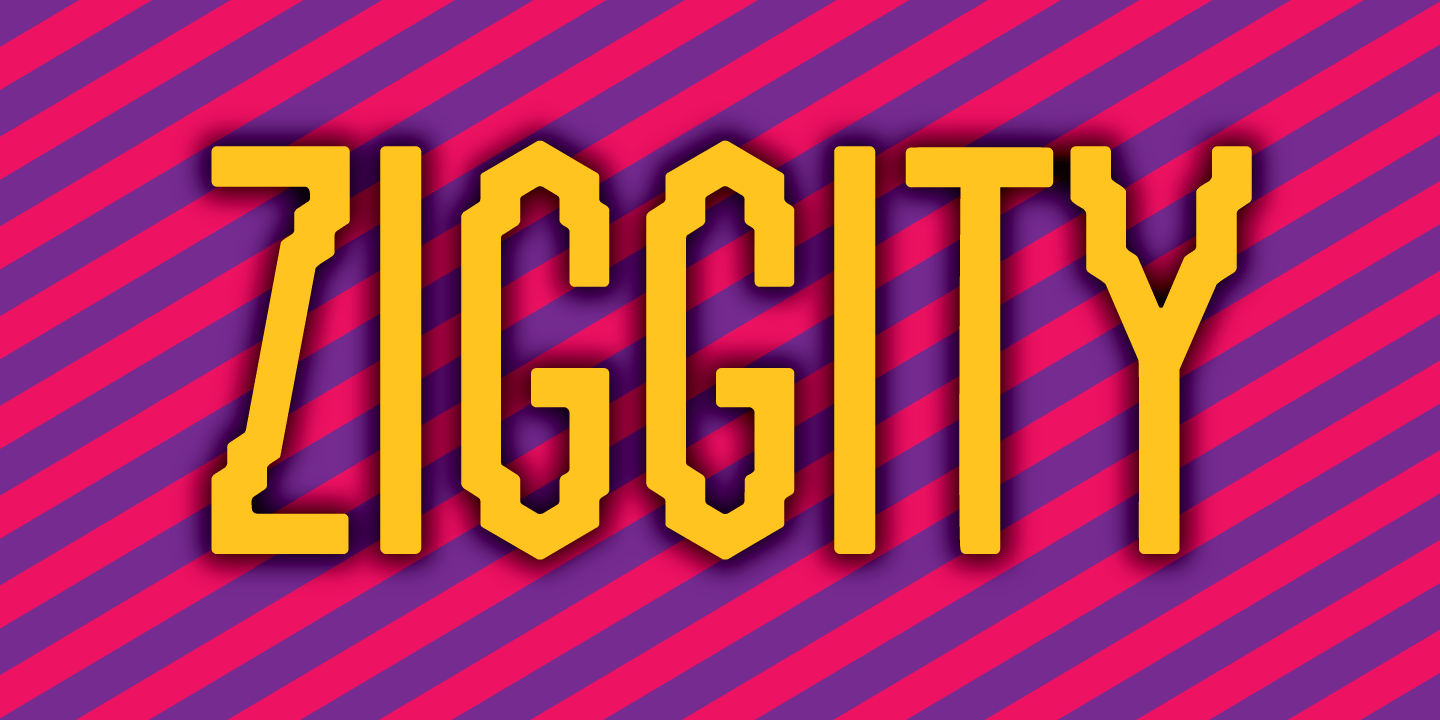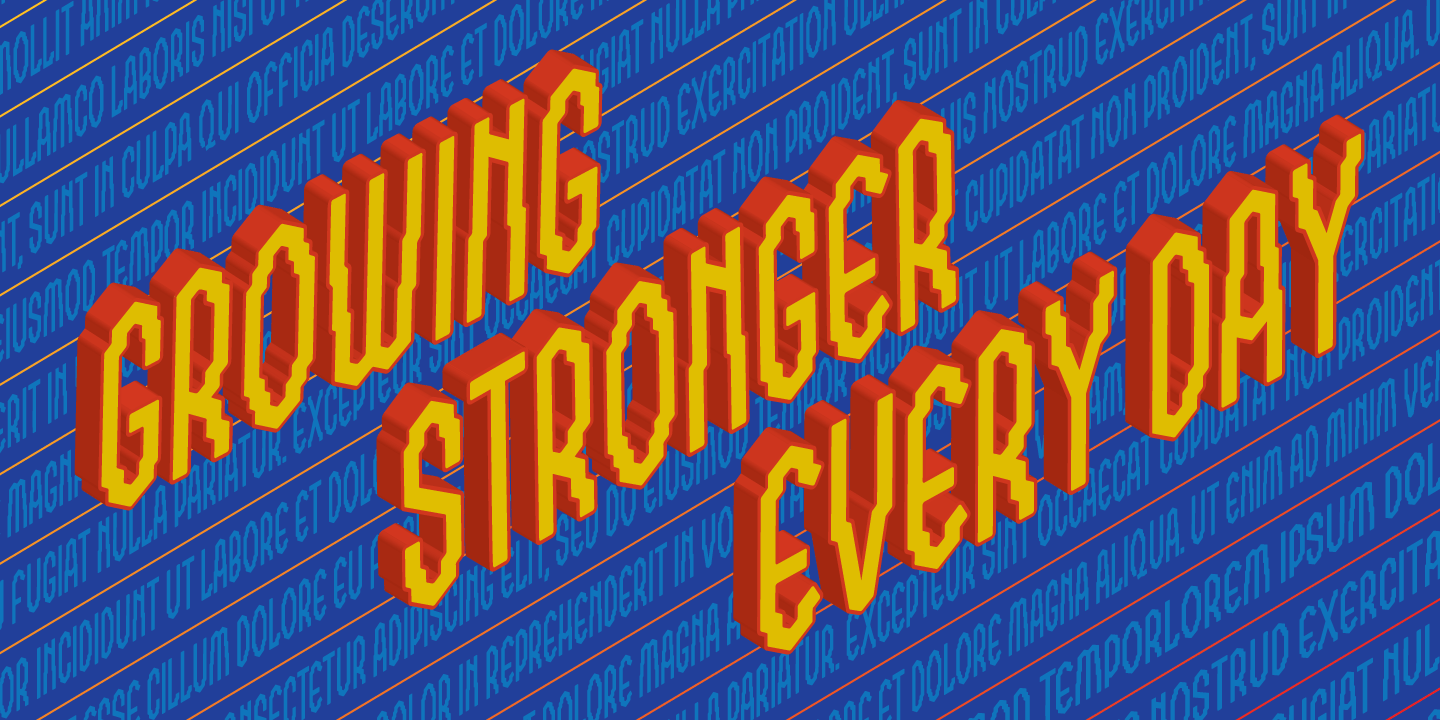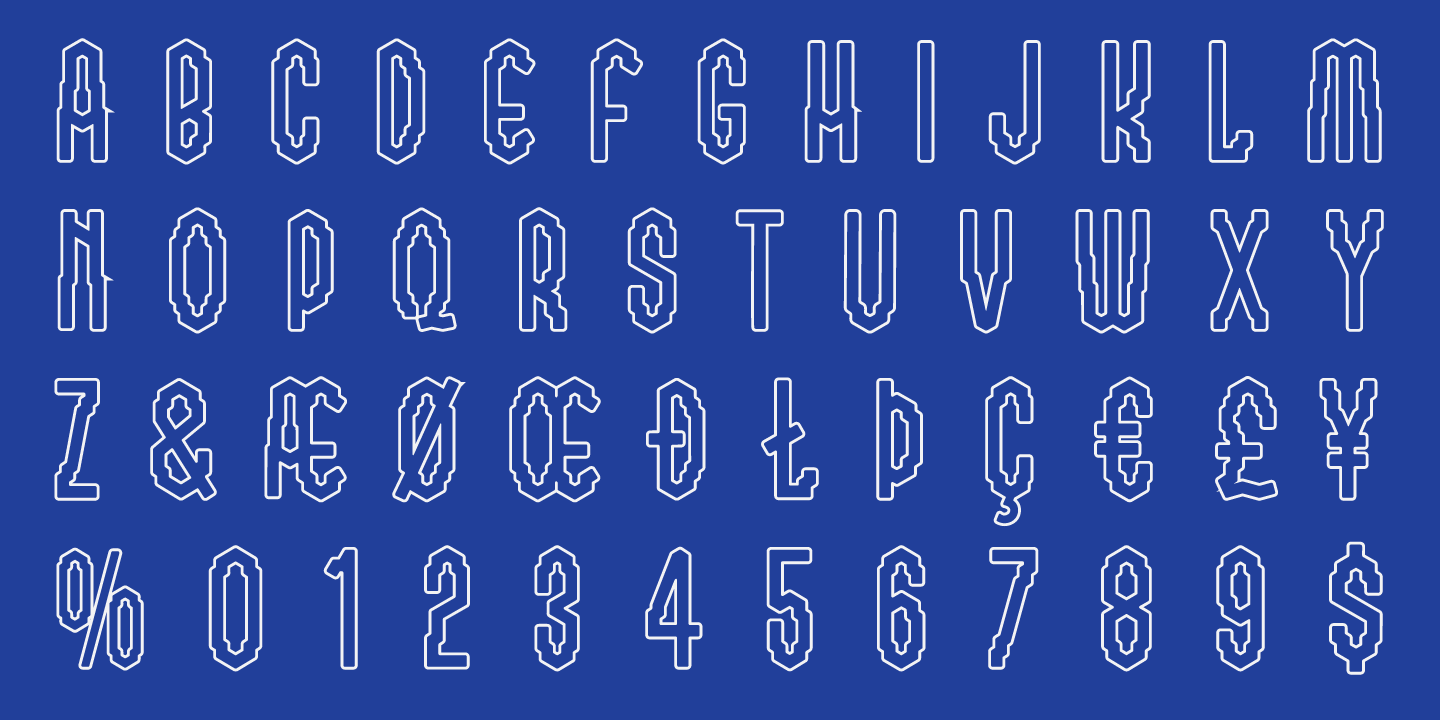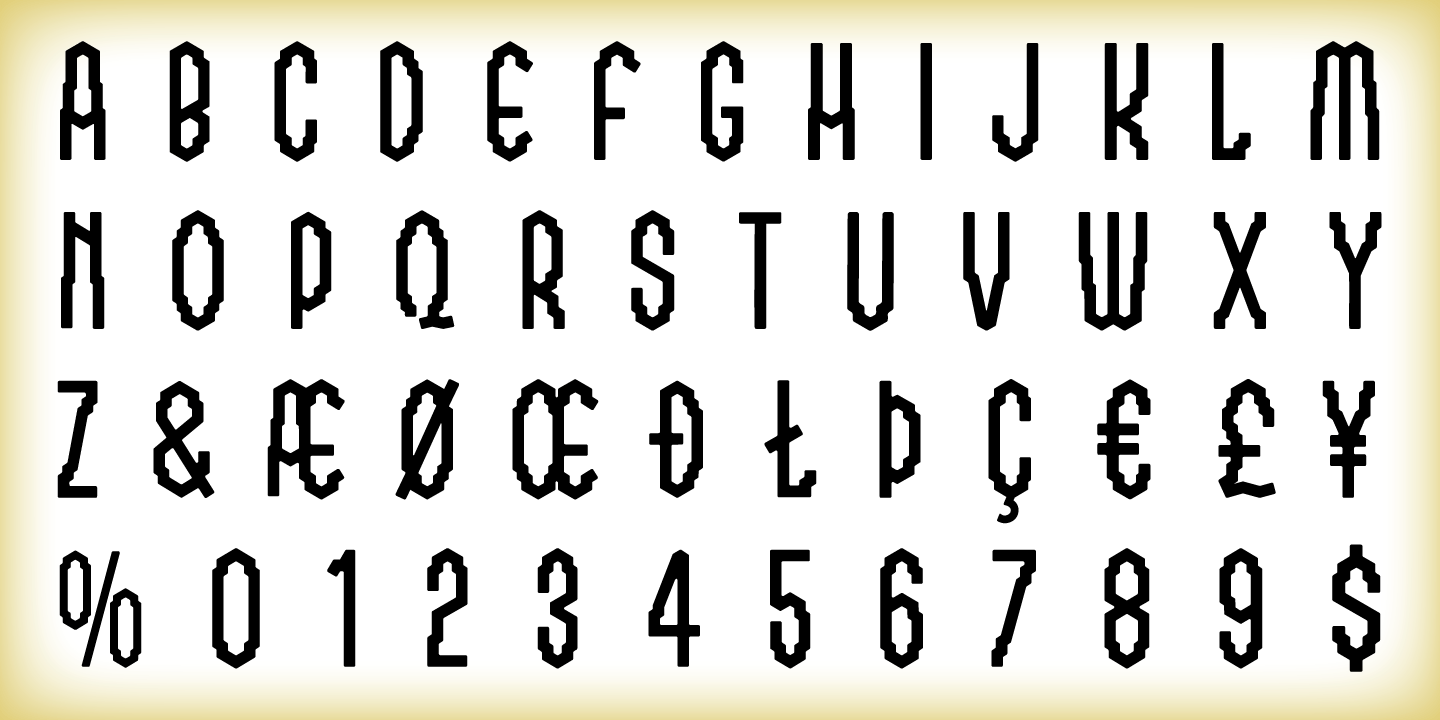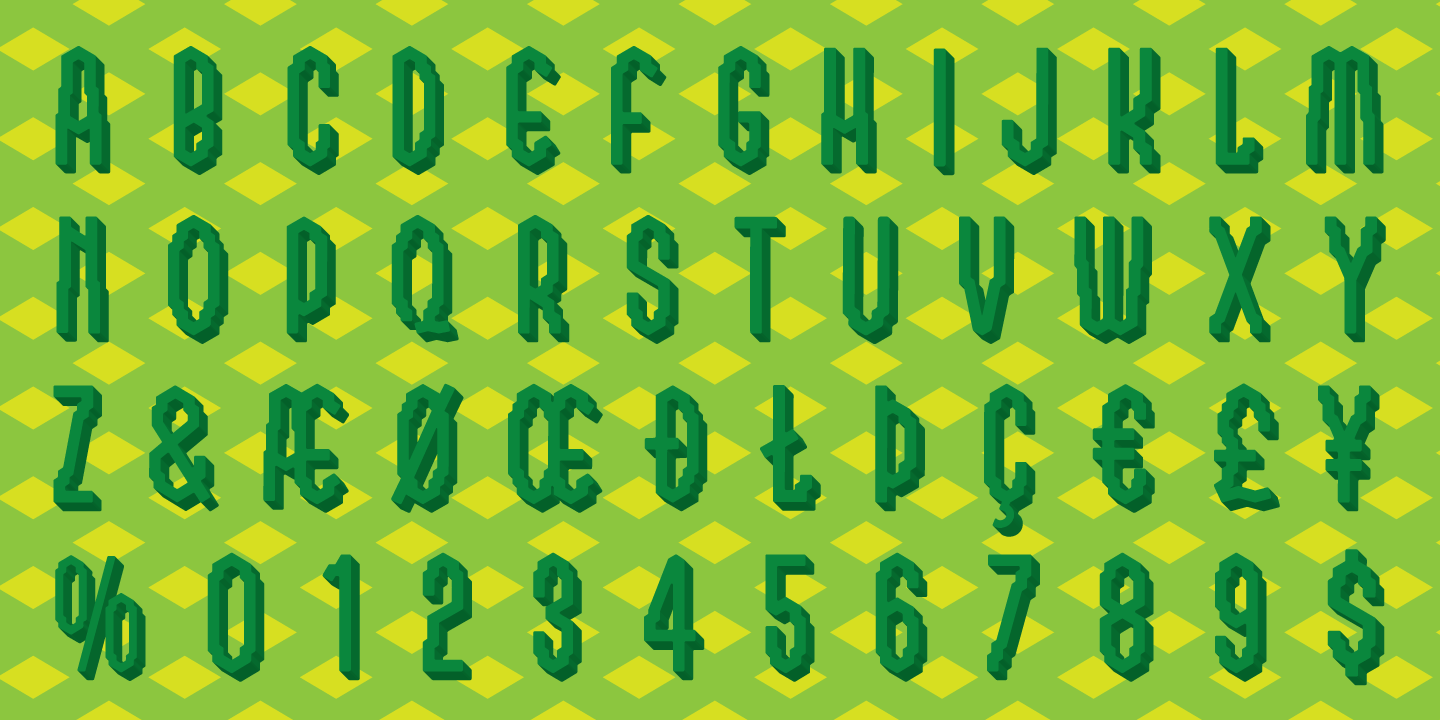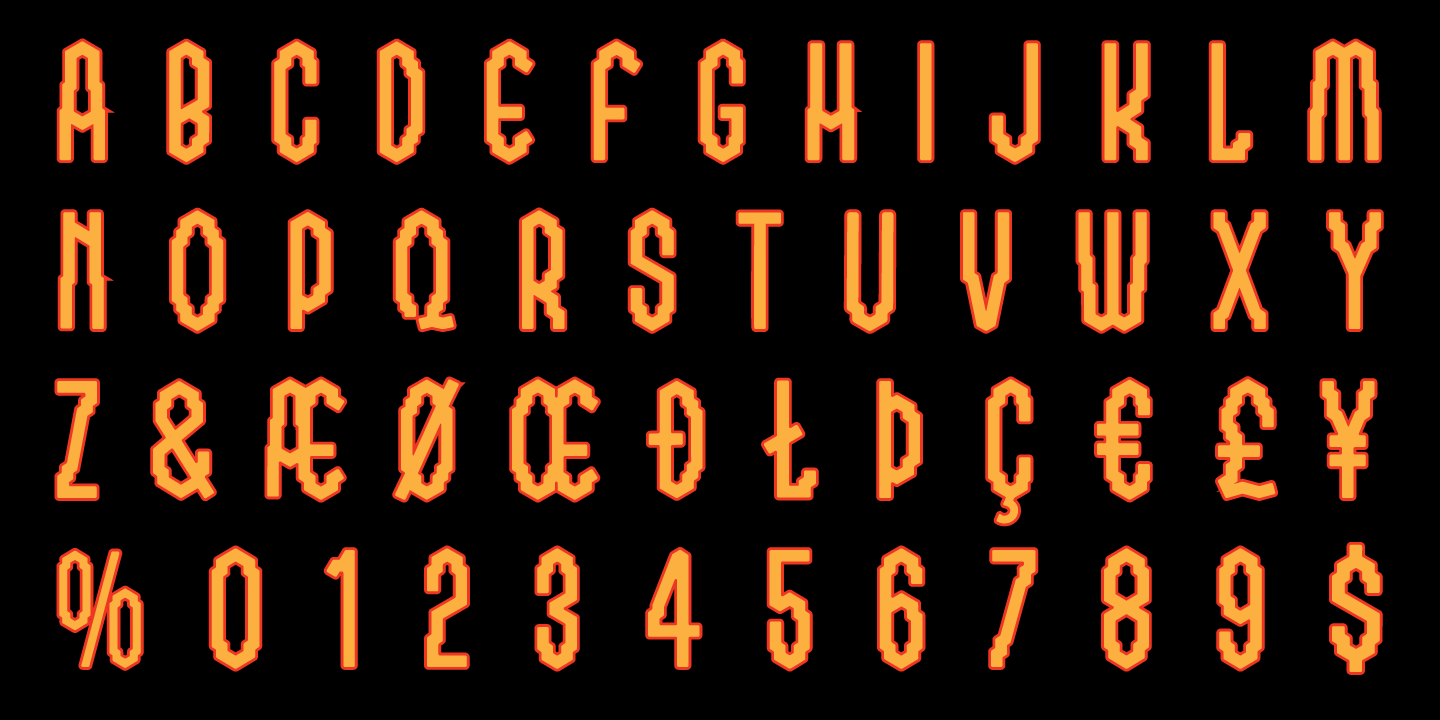
Ziggity
With its tall, slinky letterforms and perky switchbacks, Ziggity may not be your father's typeface, but don't let that fool you. It's ready and willing to step right up and say what's needed with a unique angle on things. Ready to use as-is or with any variety of angles, outlines or shadows, it will make your message memorable if not downright adorable.